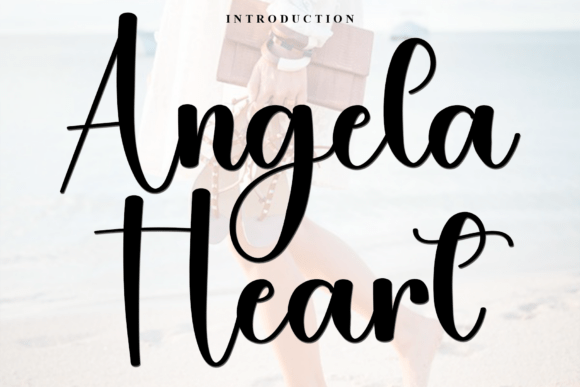
The Designer’s Delight: Angela Heart Font
I’ll never forget the time I was working on a project for a client who wanted a custom logo with a “soft yet impactful” vibe. I spent hours scouring font libraries, but nothing seemed quite right. That was until I stumbled upon the Angela Heart font. Its unique, gentle strokes instantly caught my eye, and I knew I’d found the perfect fit. In this article, I’ll share my experience with this beautiful font, its features, and how to make the most of it in your designs.
A First Impression: What I Love About Angela Heart
The Angela Heart font has quickly become a staple in my design toolkit, and for good reason. Here are a few things that I absolutely love about it:
- ✨ Unique Character: The font’s distinctive strokes give it a special charm that’s hard to find elsewhere.
- ✅ Versatility: Whether I’m working on a logo, a craft project, or a creative piece, Angela Heart adapts seamlessly.
- 💫 Aesthetic Appeal: The soft, natural style of the font makes it appealing to a wide range of audiences.
No font is perfect, and Angela Heart is no exception. A few things to keep in mind:
- 🤔 Glyph Variety: While the font has a wide range of characters, some users might find the selection a bit limited for very specific projects.
- ⚠️ OpenType Features: Advanced users might find that it lacks some of the more sophisticated OpenType features found in other fonts.
One of the joys of using professional fonts like Angela Heart is accessing OpenType features. These features allow you to customize your text with:
- Stylistic Alternates: Swap out certain characters for stylistic variations.
- Glyphs: Access additional symbols and icons that can enhance your design.
The Story Behind Angela Heart
While the origins of Angela Heart might be shrouded in mystery, it’s easy to imagine that its creation was inspired by a love of gentle, impactful design. Perhaps the designer, fueled by a passion for both classic and modern typography, sought to create a font that would bring warmth and uniqueness to any project. Whatever the inspiration, Angela Heart’s distinctive style has captured the hearts of designers worldwide.
Q: What makes Angela Heart font unique?
A: Angela Heart is unique due to its soft, natural strokes and distinctive character, making it both meaningful and versatile.
Q: Are there any limitations to using Angela Heart in designs?
A: While Angela Heart offers a wide range of characters, users might find some limitations in glyph variety or advanced OpenType features compared to other fonts.